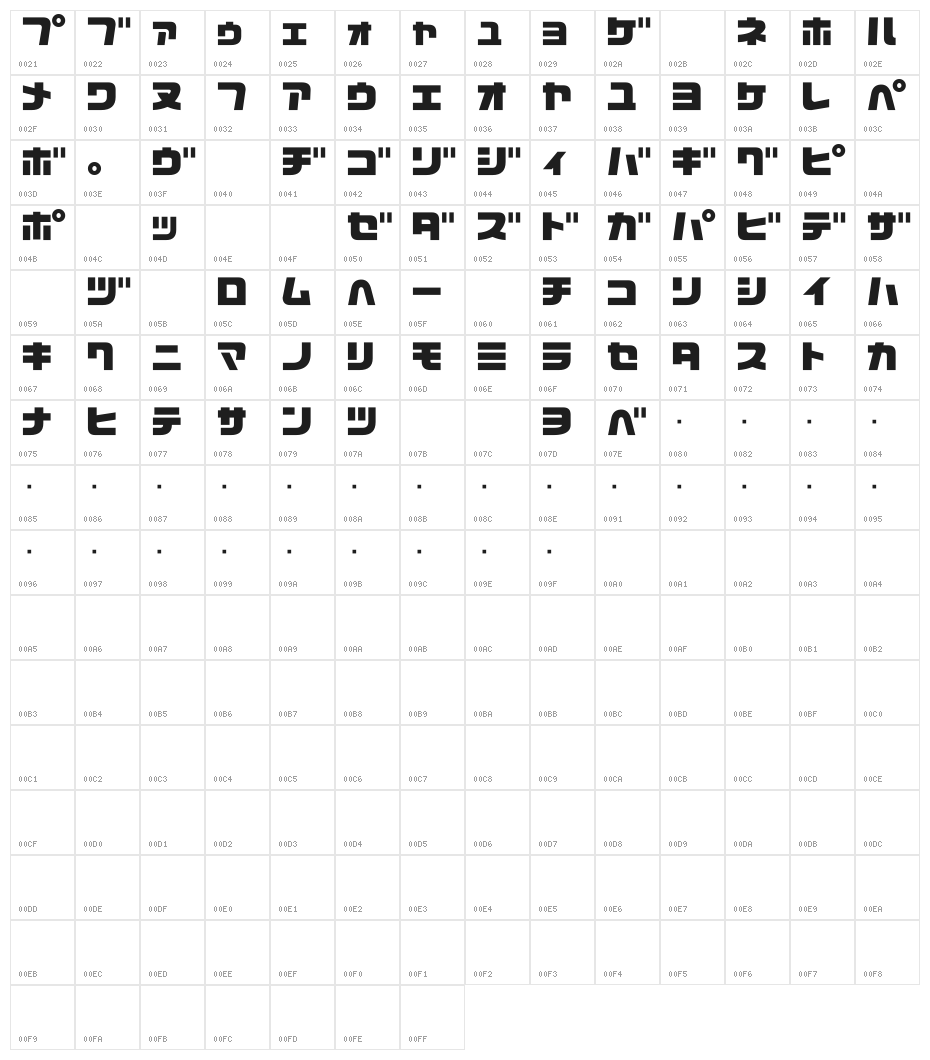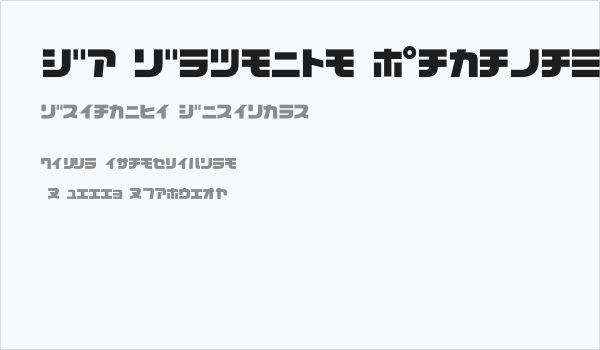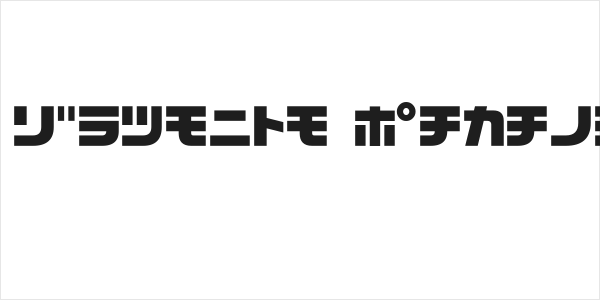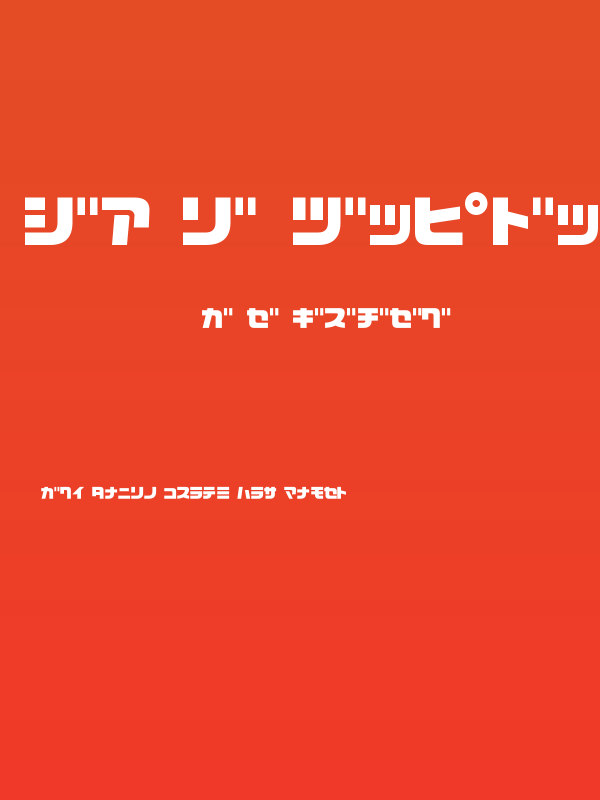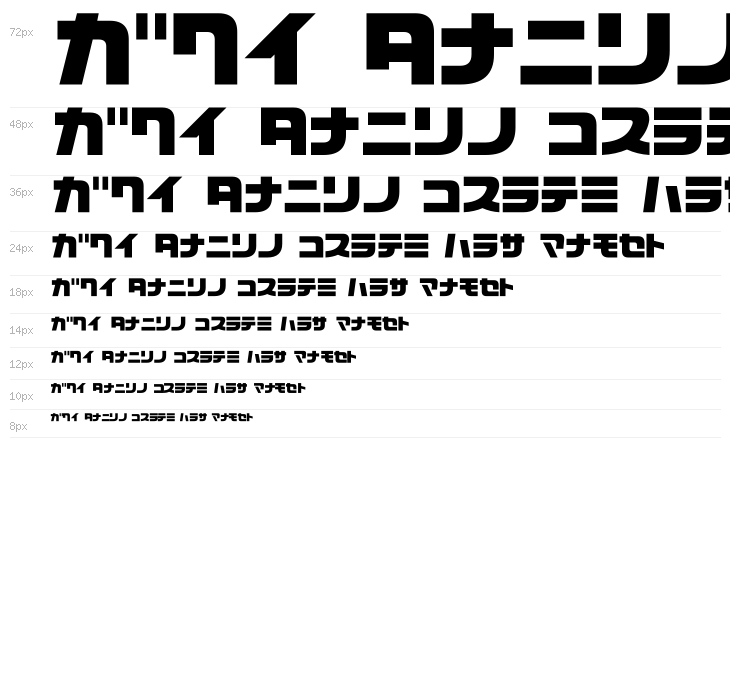
D3 Cozmism Katakana Font
D3 Cozmism Katakana Description
This font features bold, geometric shapes with a modern and futuristic aesthetic. The characters are blocky and robust, with a consistent stroke width that gives them a strong presence. The style is reminiscent of digital or sci-fi themes, making it ideal for projects that require a contemporary and technological feel. The uniformity in the design ensures readability while maintaining a distinct visual impact. The characters are evenly spaced, contributing to a clean and organized appearance.
| Proposed Projects | Ideal for tech-related branding, sci-fi themed designs, video game interfaces, and digital media. |